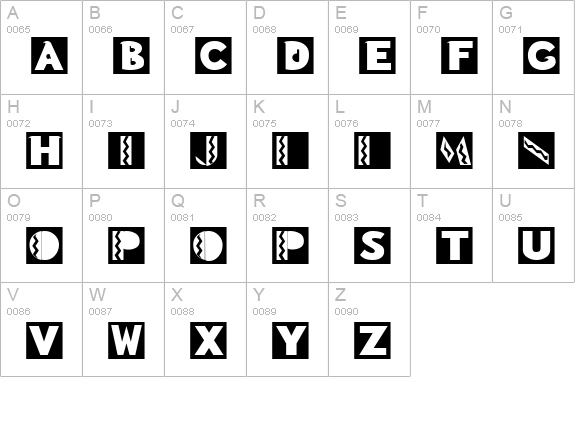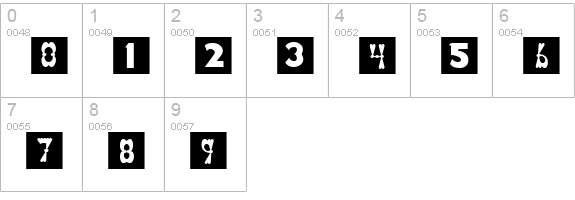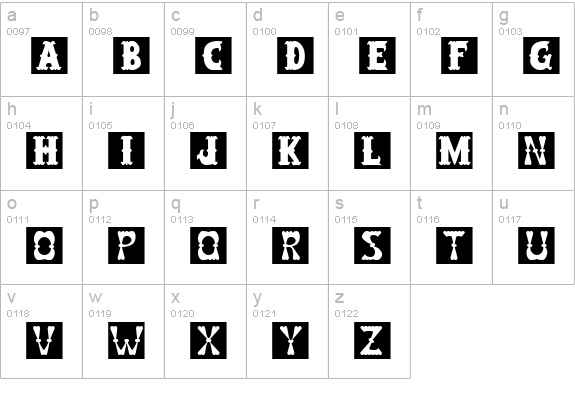
ToyBlock Regular Font Details
ToyBlock Regular is the standard, neutral variant in the ToyBlock typeface family \xE2\x80\x94 well suited to general body text, paragraphs, and standard typographic work.
ToyBlock Regular font is a charming and playful typeface that is perfect for adding a touch of fun to your designs. It features adorable block letters with rounded edges, giving it a friendly and approachable feel. The font is versatile and can be used for various purposes such as children's books, posters, logos, and more. What's even better is that ToyBlock Regular font is available for free! You can easily download it at FontsMarket.com, a trusted source for high-quality fonts. This means that you can enhance your projects without breaking the bank. Whether you're a professional designer or someone looking to add a touch of whimsy to your personal creations, this font is a fantastic choice. With ToyBlock Regular font, you can bring your designs to life and captivate your audience with its playful and imaginative style. Its legibility and unique character make it suitable for both print and digital media. The font's bold and eye-catching appearance ensures that your message will stand out and leave a lasting impression. Don't miss the opportunity to get your hands on ToyBlock Regular font for free. Head over to FontsMarket.com and start adding a touch of creativity and joy to your projects today.